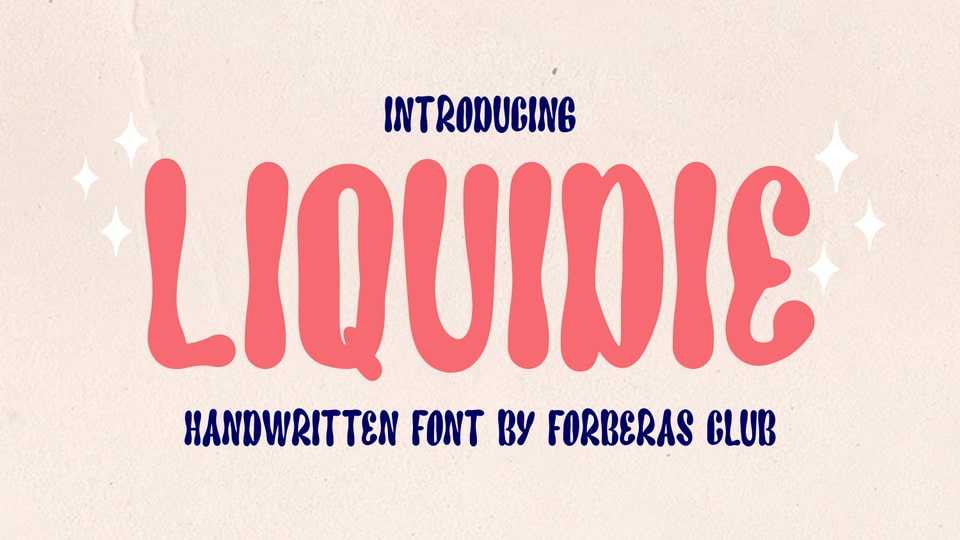
Download Liquidie font, a fancy and playful handwritten typeface created to impress your audience. Use it for your headings, logos, ads, printed quotes, packaging, and even your website or social media branding.